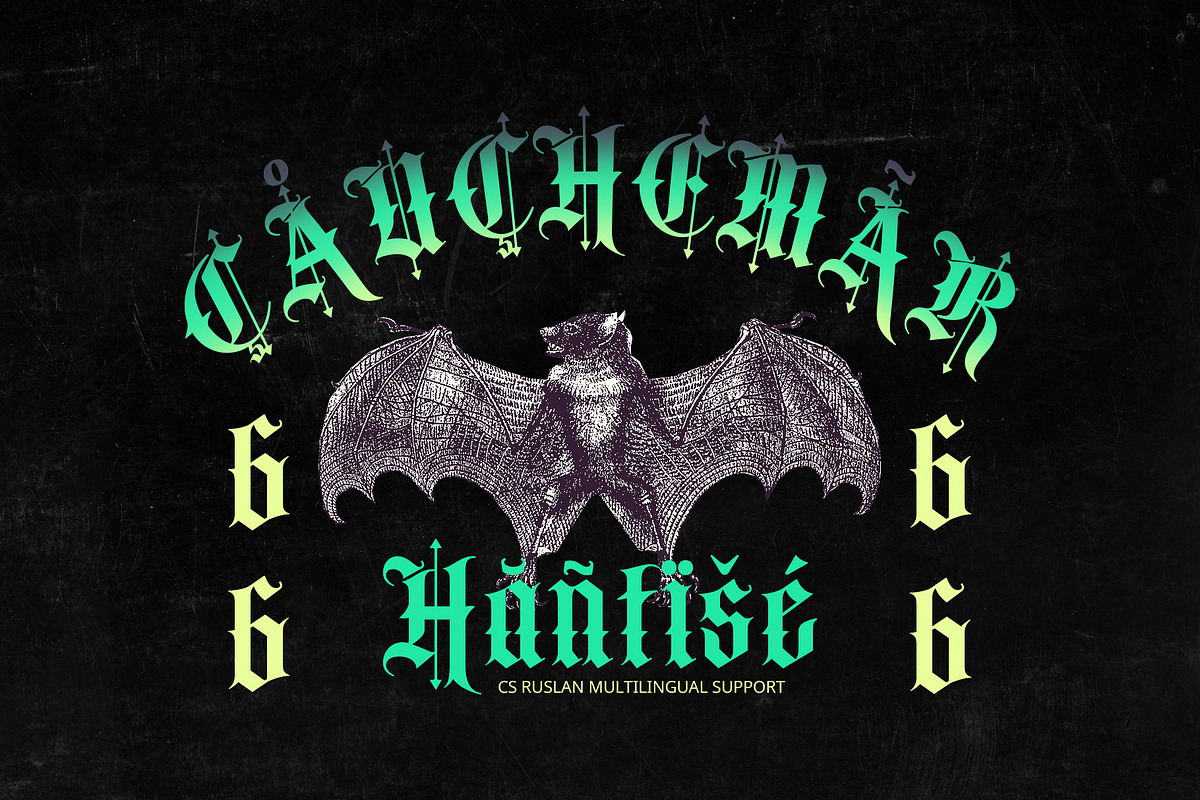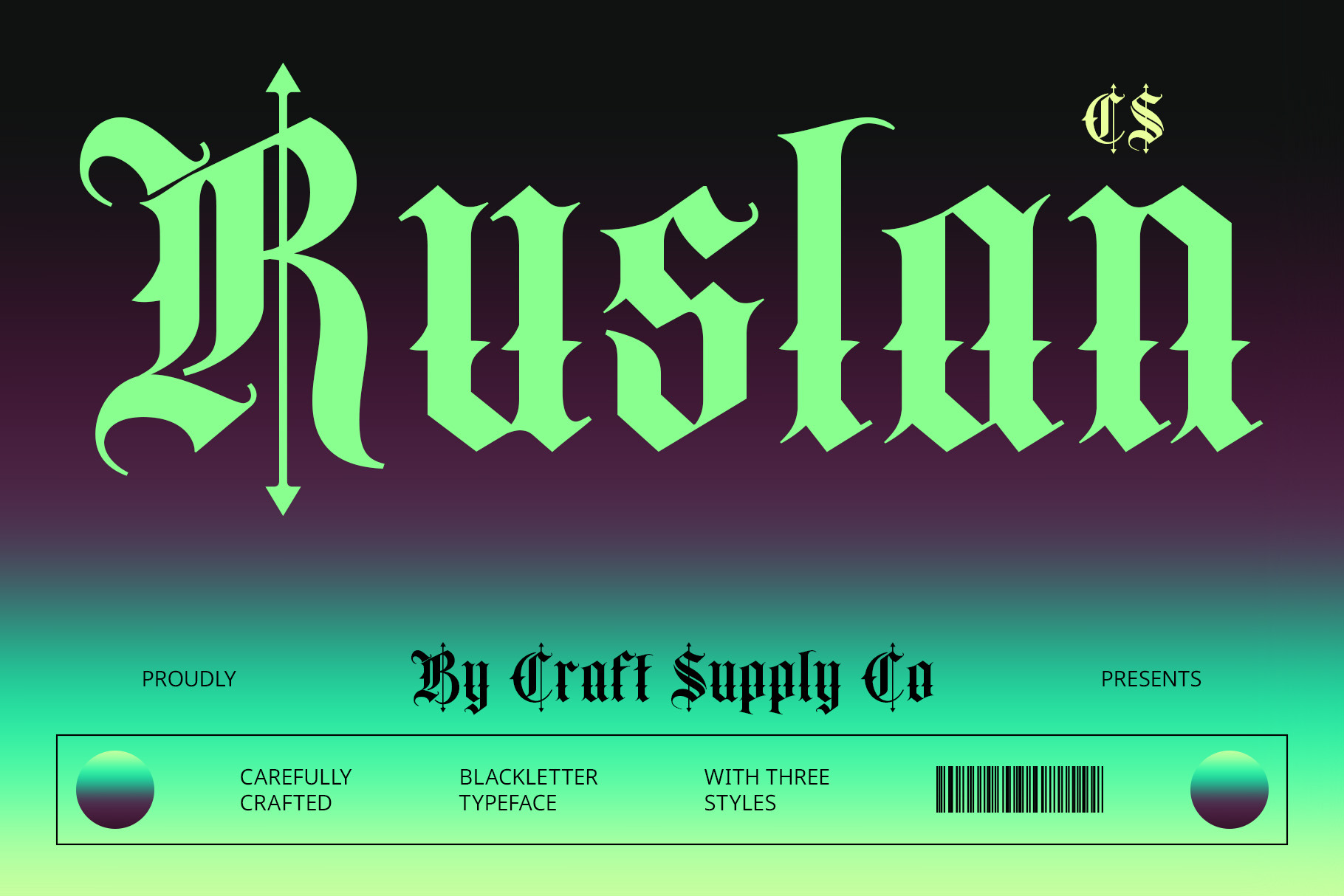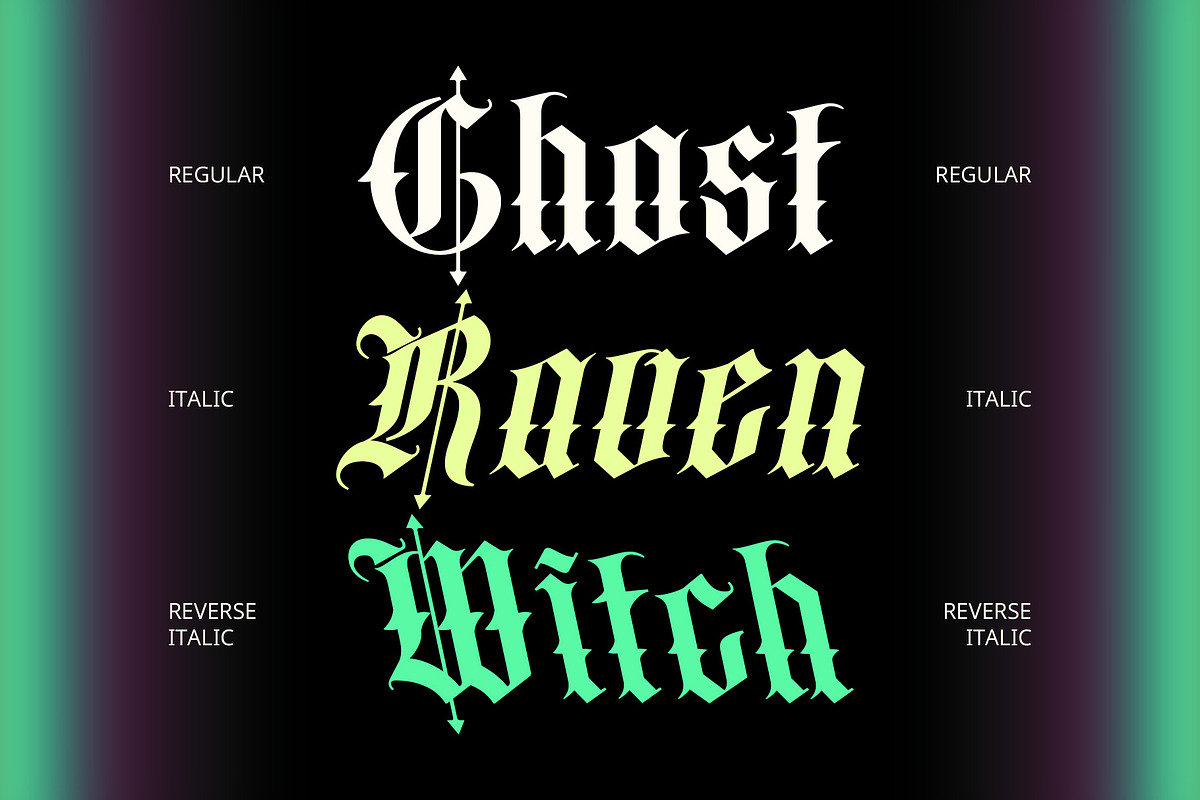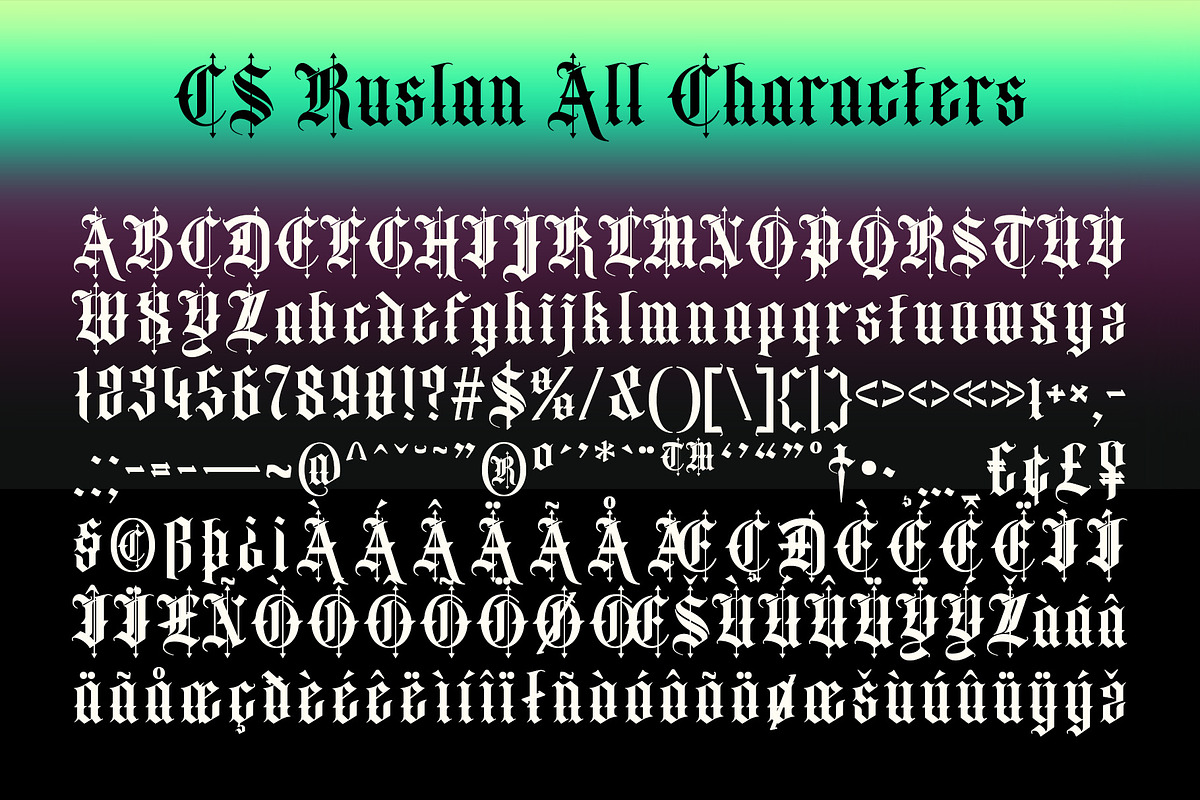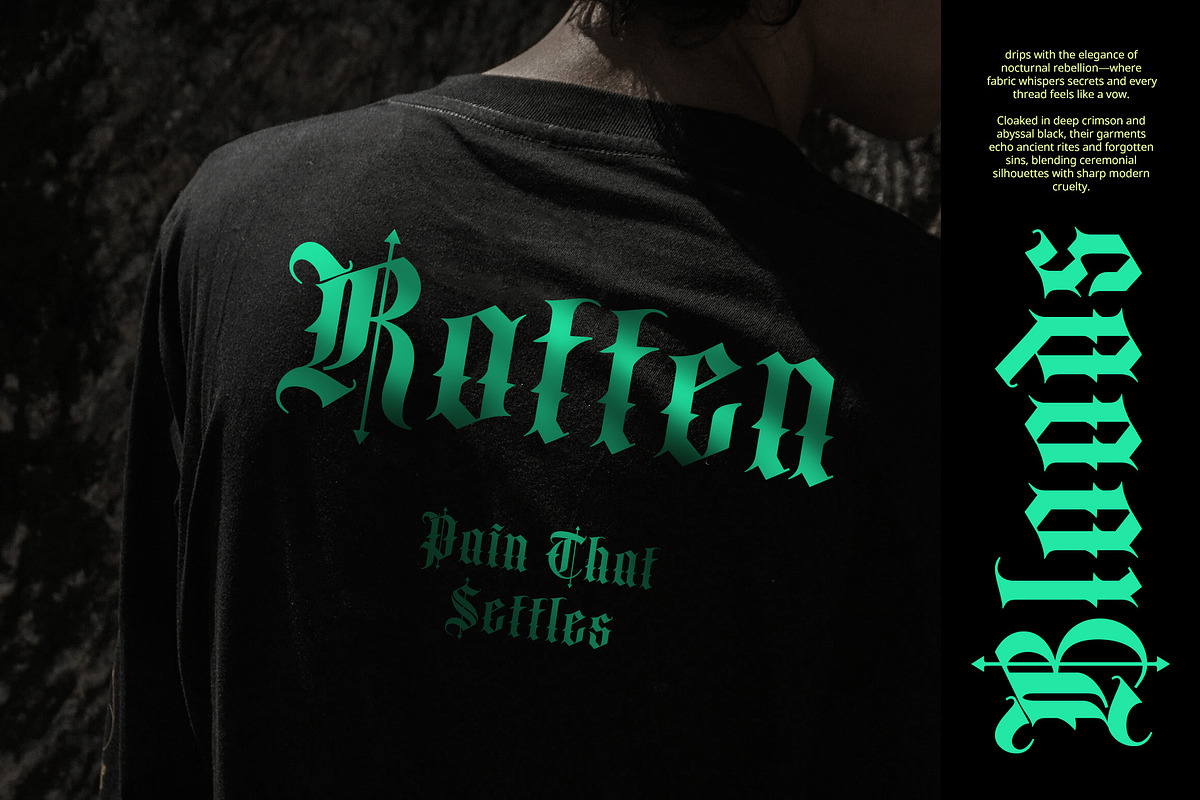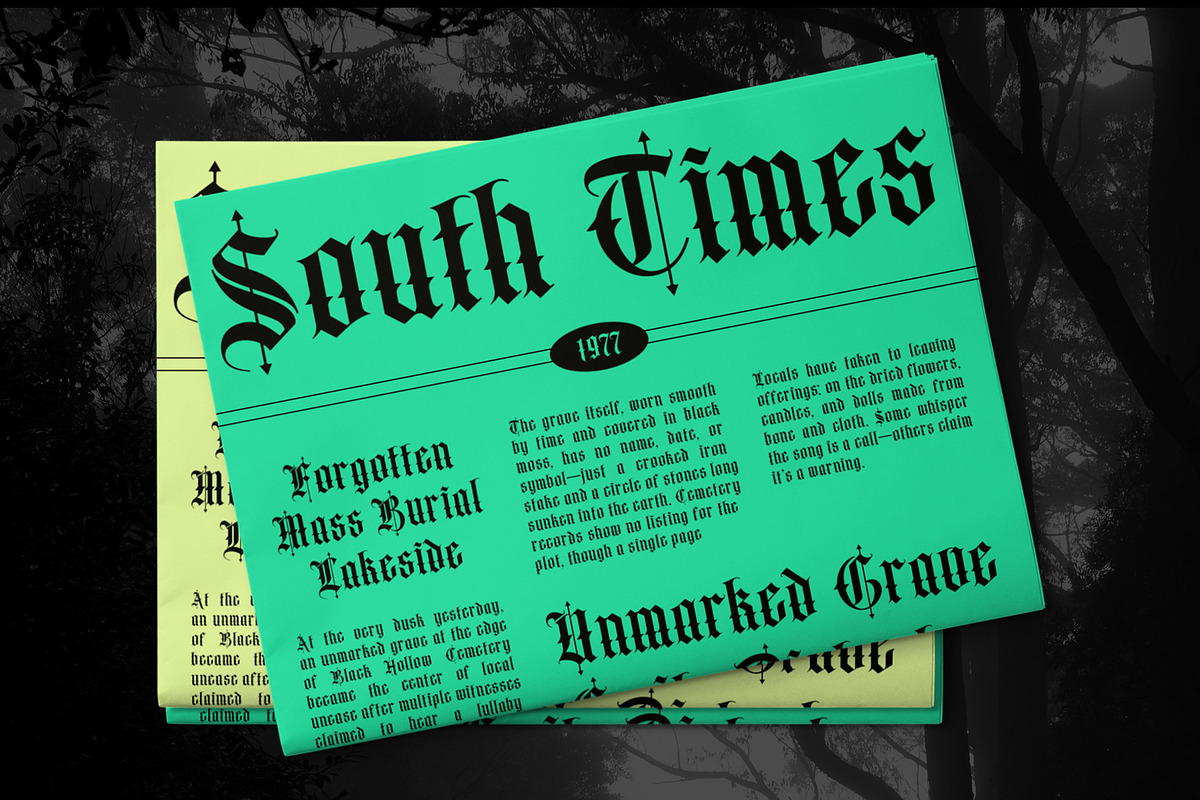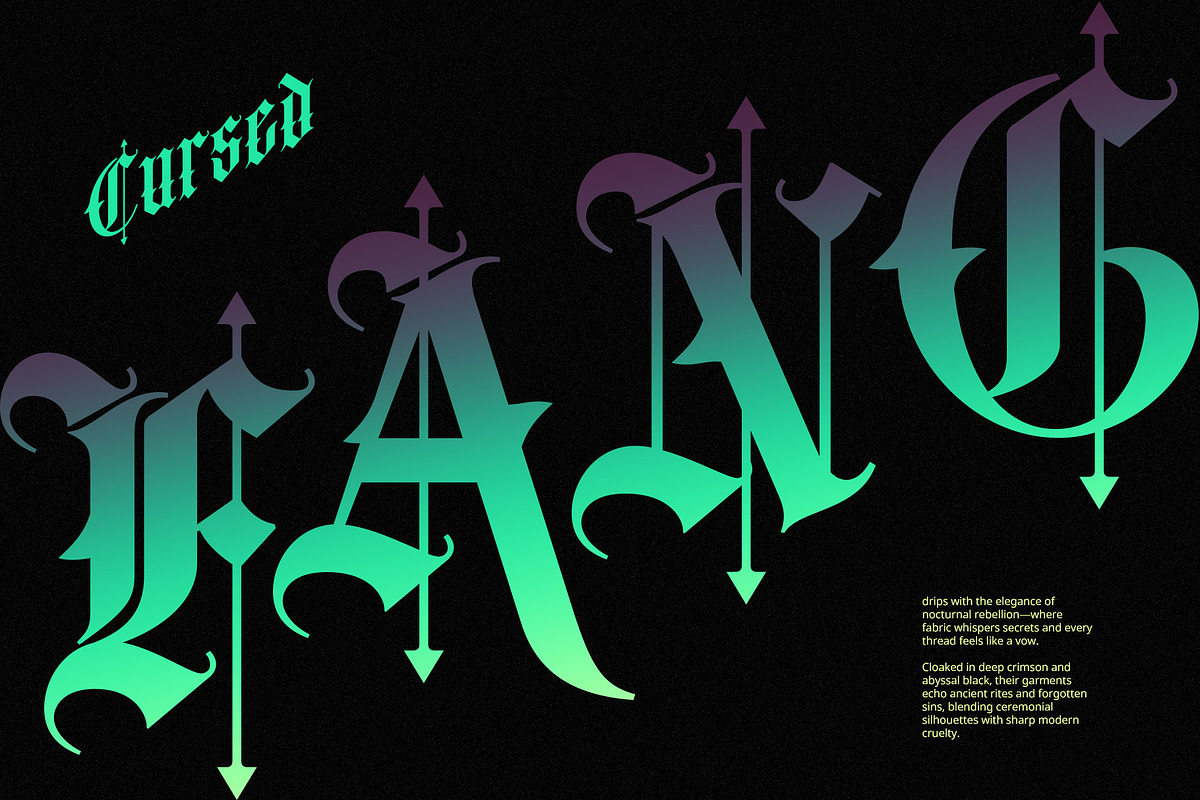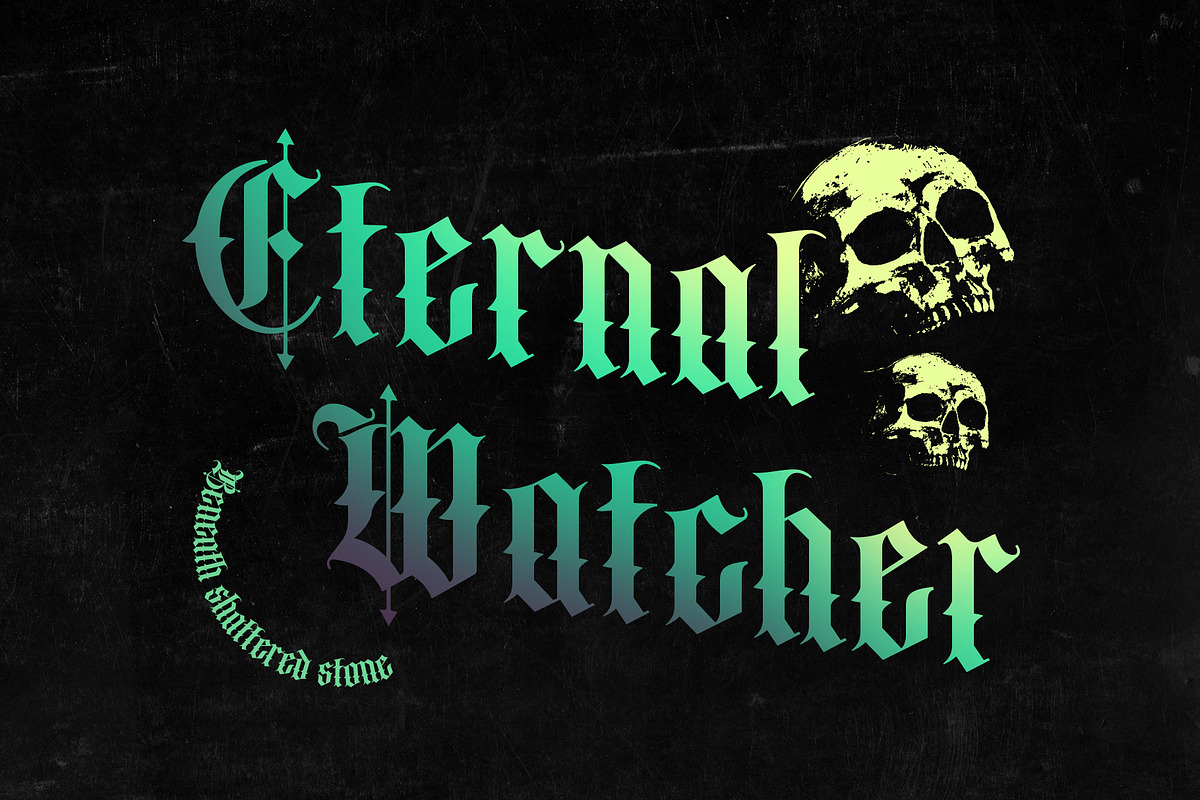
CS Ruslan – Blackletter Font
CS Ruslan – Blackletter Font with Bold Gothic Presence
Blackletter Display Font Inspired by Medieval Typography CS Ruslan is a striking blackletter display font that channels the dramatic beauty of medieval calligraphy. With its bold, sharp, and angular letterforms, it delivers a powerful visual impact rooted in historical aesthetics and gothic tradition.
Sharp, Bold, and Dramatic Letterforms Each character in CS Ruslan features pointed terminals and high contrast strokes, evoking the craftsmanship of old-world script. Its bold presence commands attention, making it ideal for projects that demand strength and dramatic flair.
Perfect for Gothic, Horror, and Metal-Inspired Designs Whether you’re designing for dark fantasy themes, horror movie posters, metal band branding, or historical visuals, CS Ruslan adds authenticity and visual weight. It’s the perfect choice for creating a mood that’s intense, mysterious, or rebellious.
A Fusion of Tradition and Edge Though rooted in classic blackletter traditions, CS Ruslan’s refined structure makes it adaptable for modern applications. Its clean detailing ensures readability, while its expressive forms maintain the raw energy of gothic design.
Make a Bold Statement with Timeless Style CS Ruslan is not just a font—it’s a visual experience. Ideal for logos, titles, album covers, and packaging that seek to blend heritage with bold creativity, it’s a font that speaks volumes through its dramatic character and historical essence.